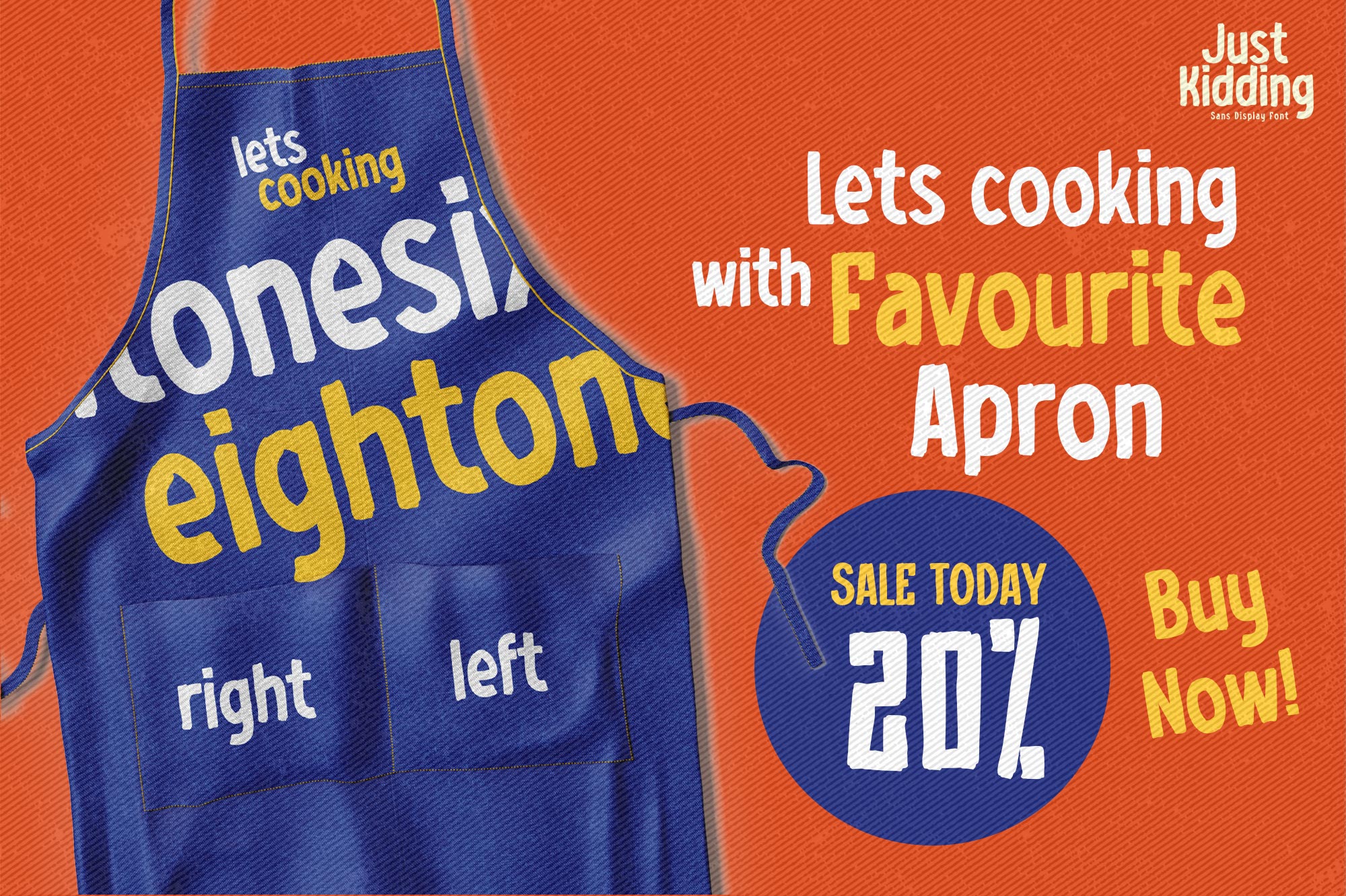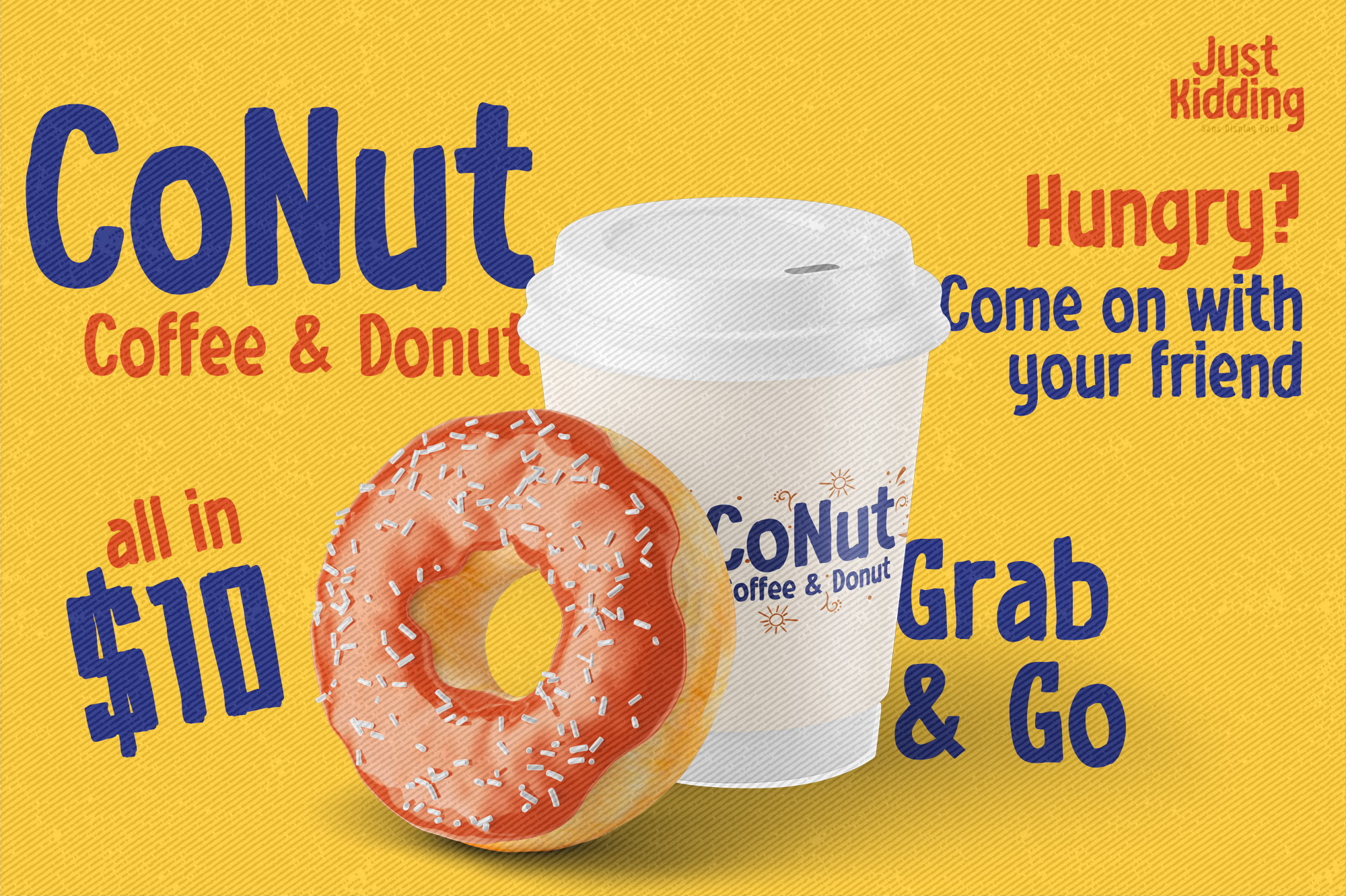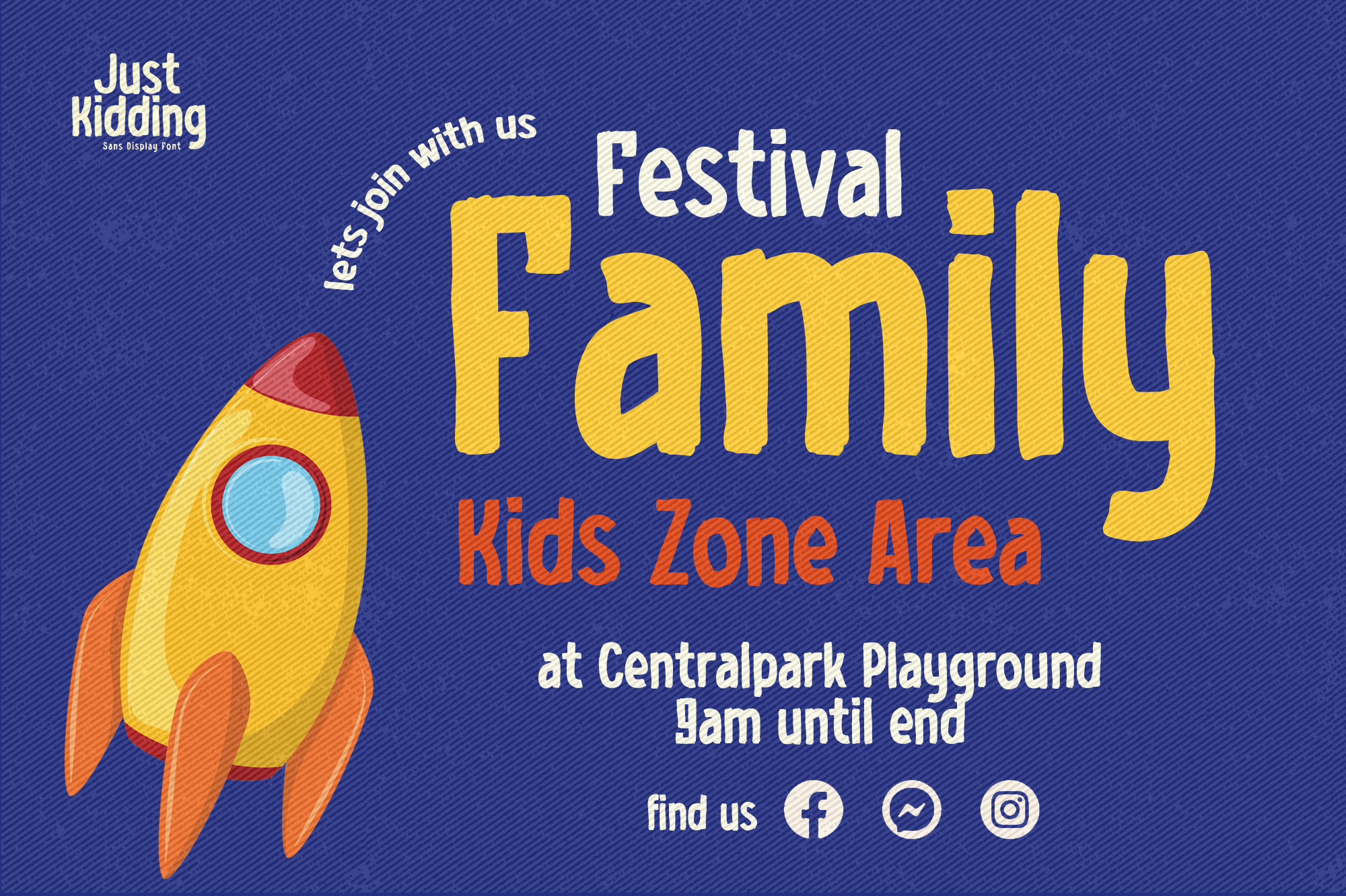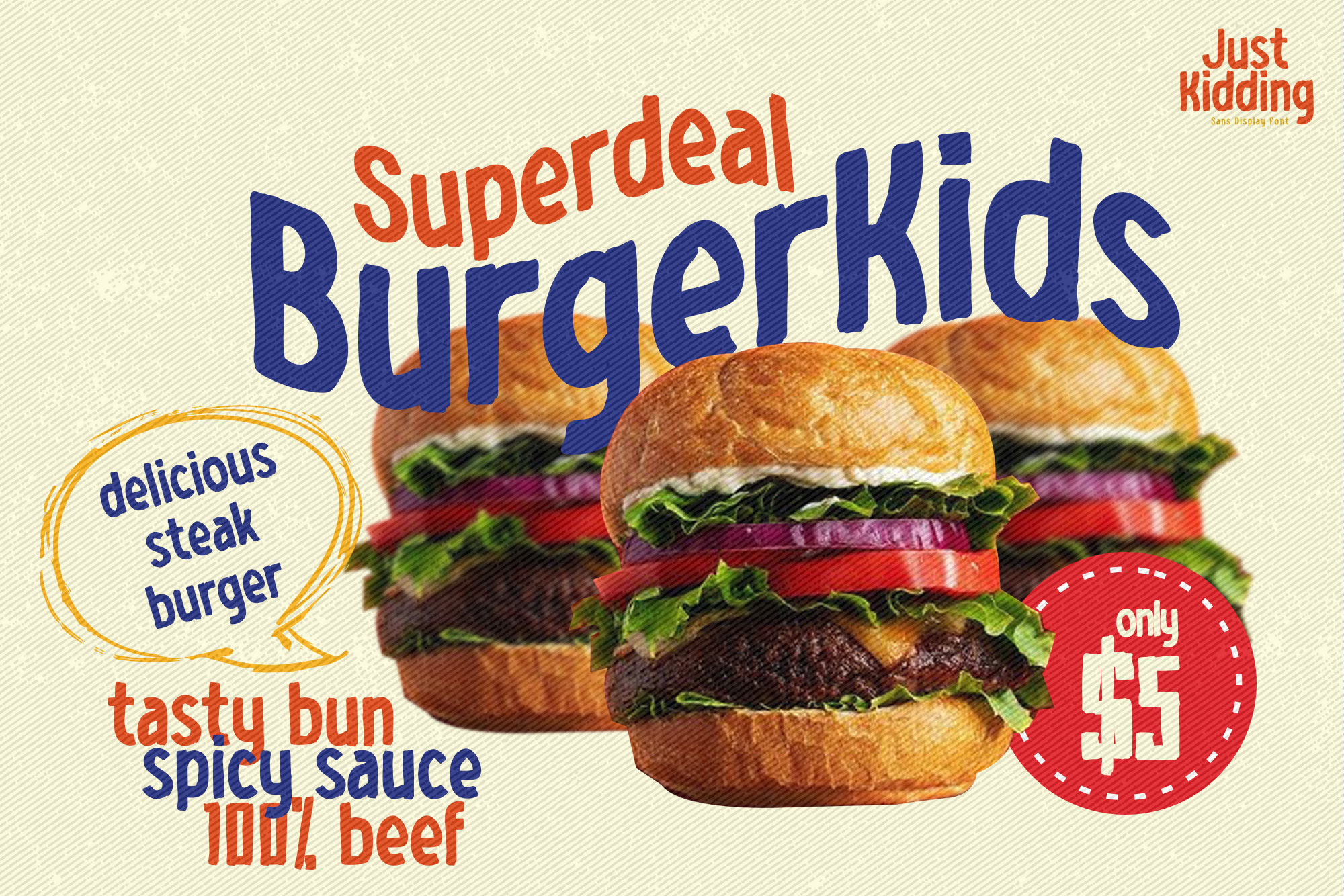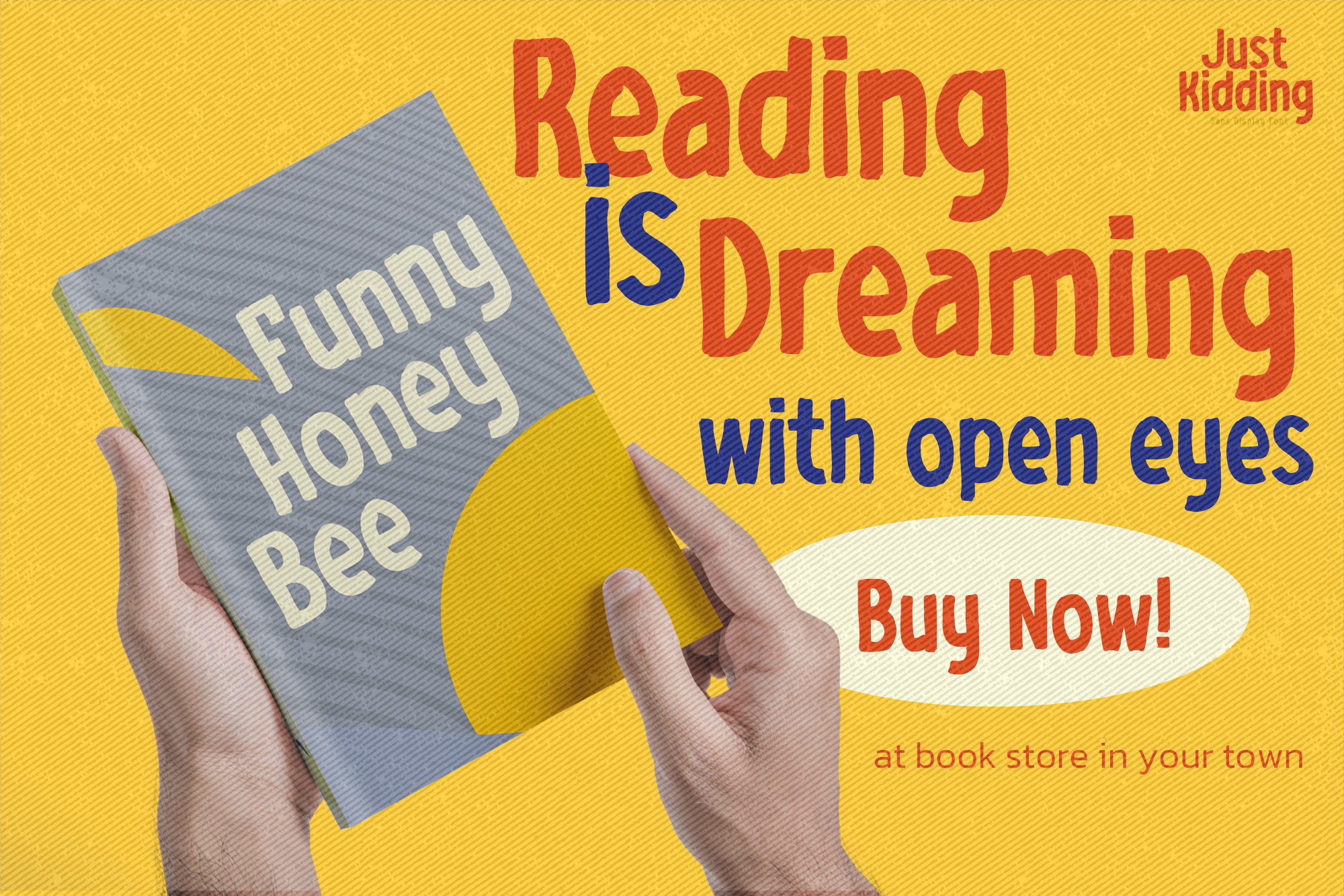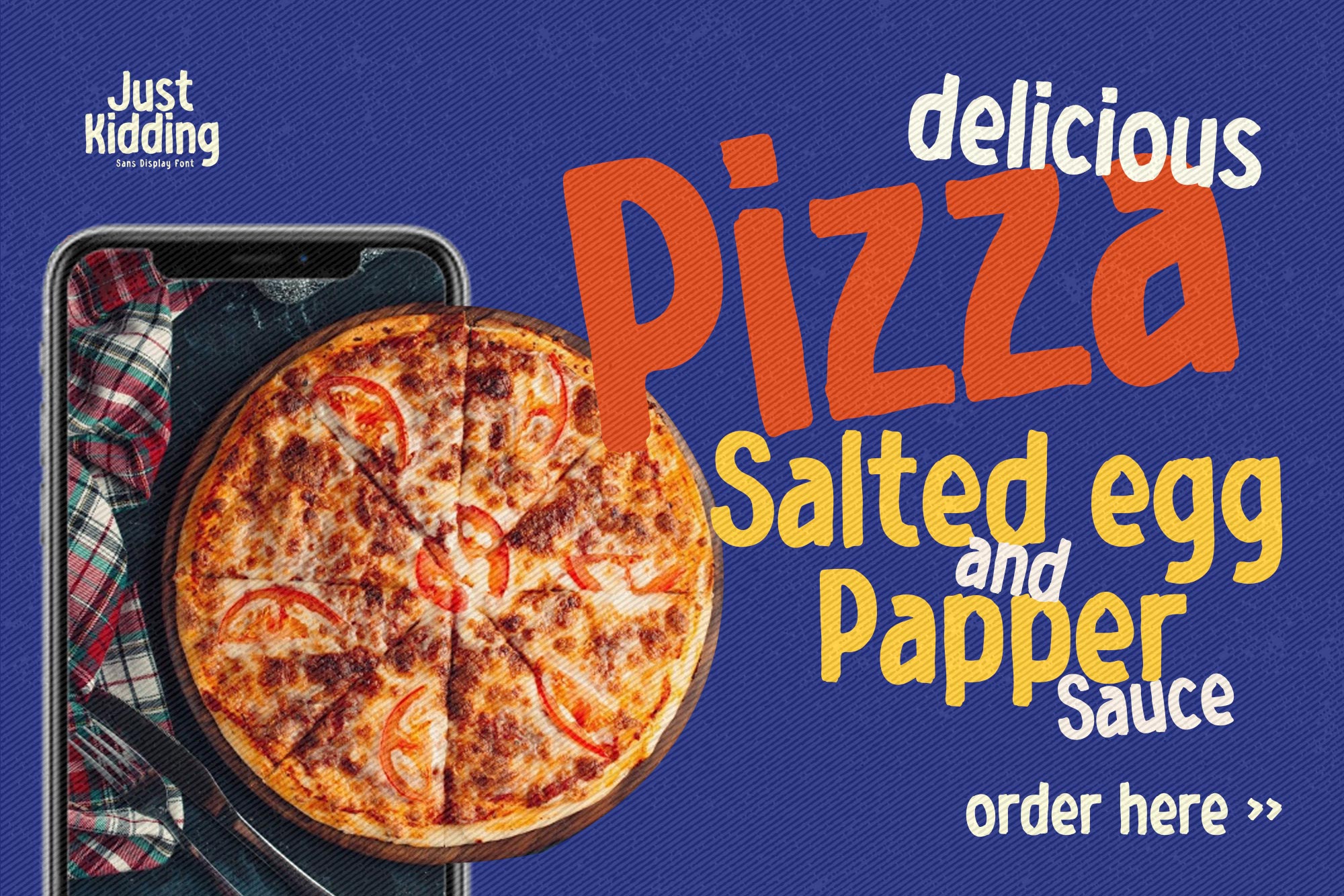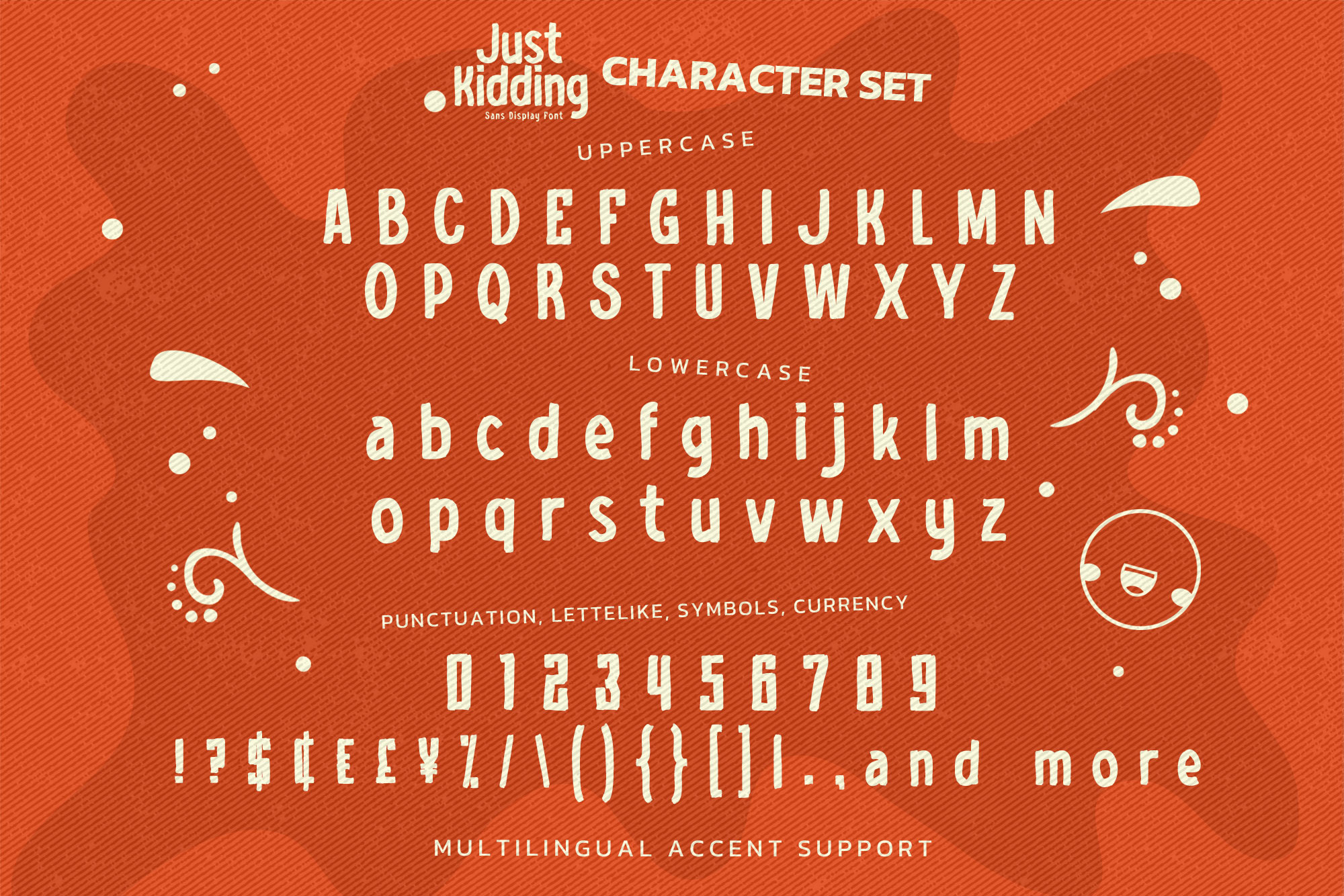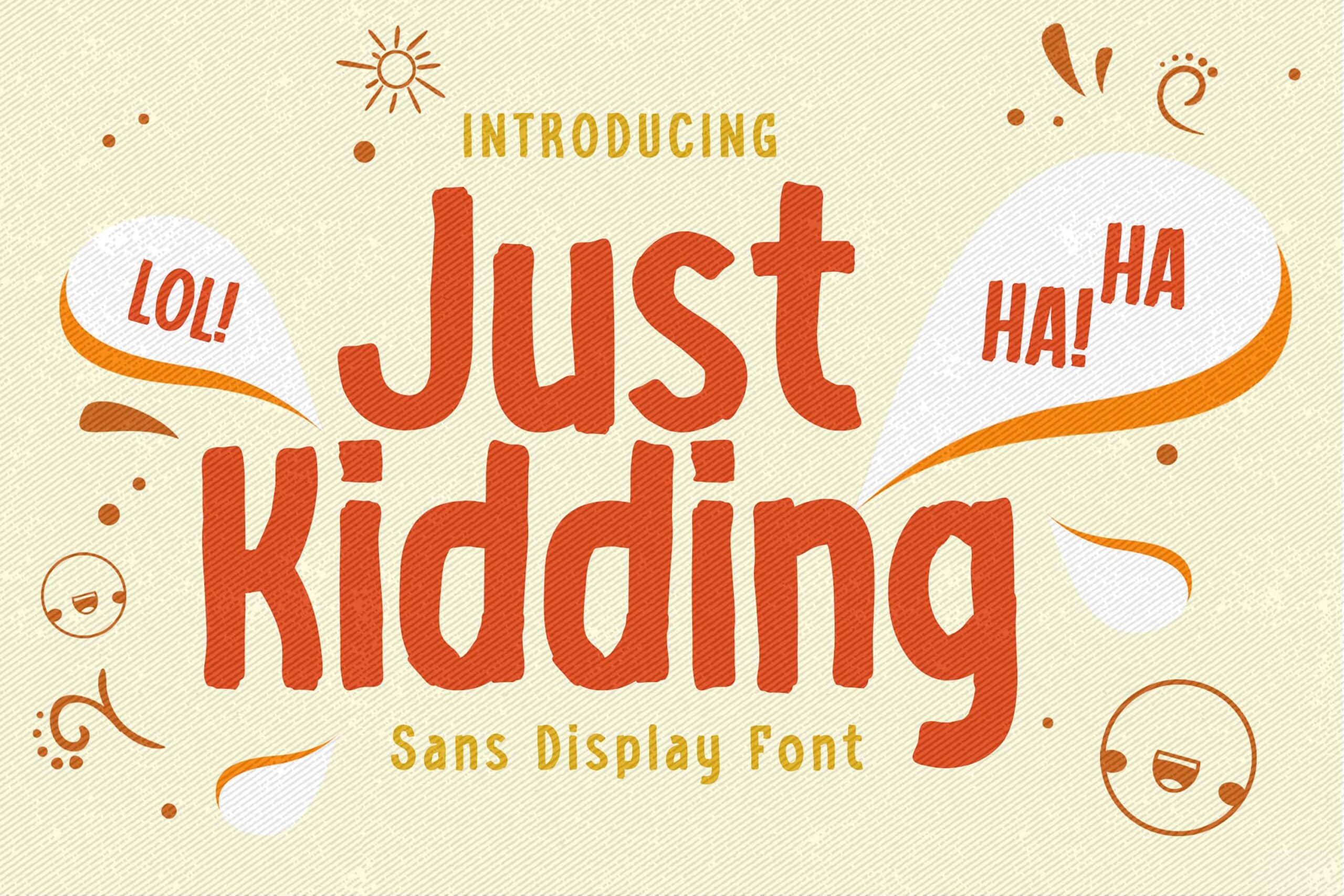
Just Kidding – Sans Display Font, modern style and dramatic movement that is written casually and quickly.
The best for labels,poster,project designs look modern, authentic and unique. It’s perfect for labels, quotes, posters, DIY projects, branding, packaging, greeting cards, websites, photography overlays, signs, scrapbooking, tags and so much more! That is why Just Kidding has a textured, and unique characteristic more natural look.